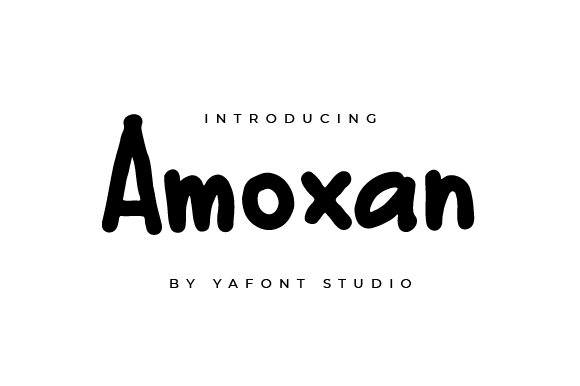
About Amoxan Font
Amoxan is a simple and casual handwritten font. Its natural and unique style makes it incredibly fitting to a large pool of designs.